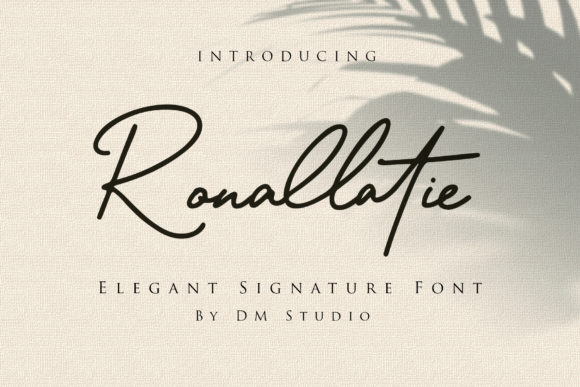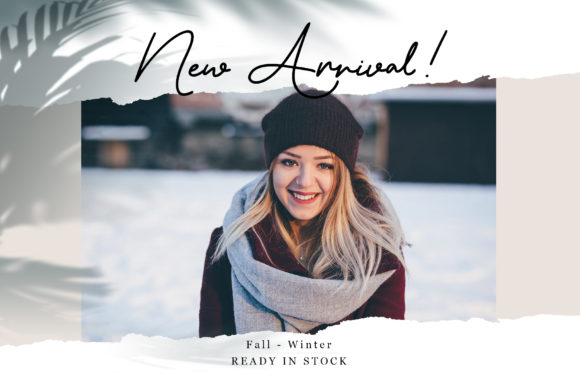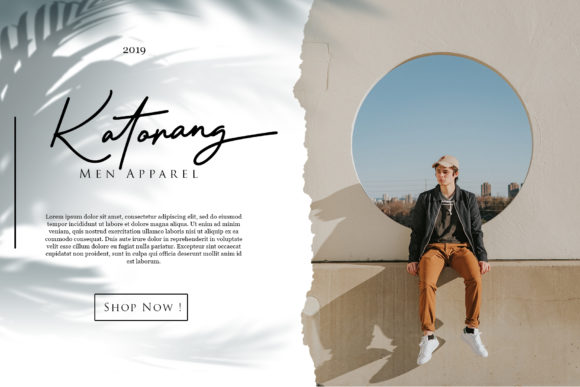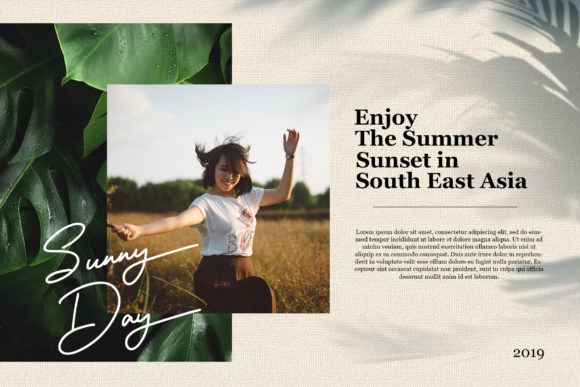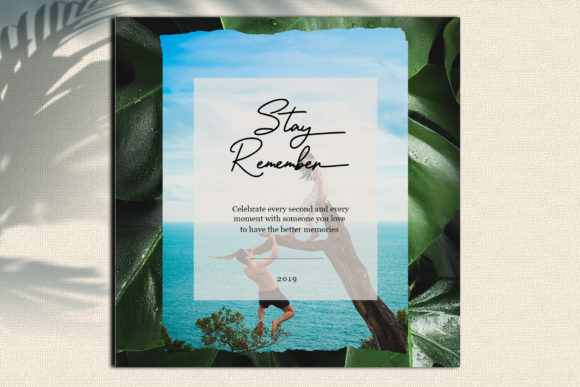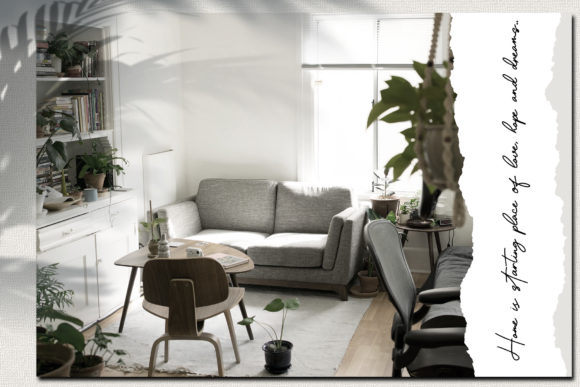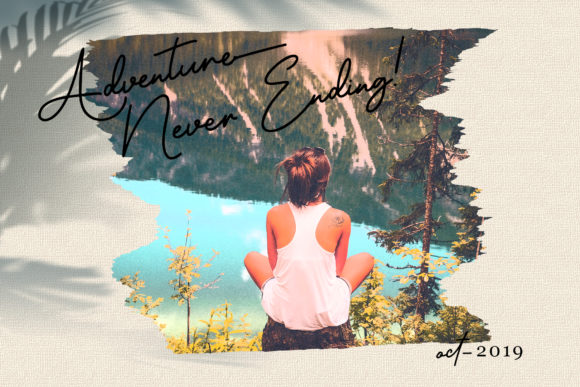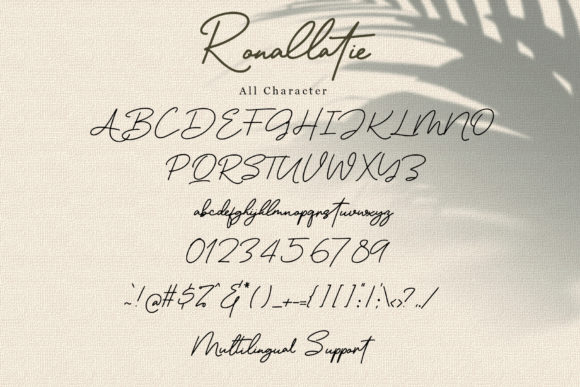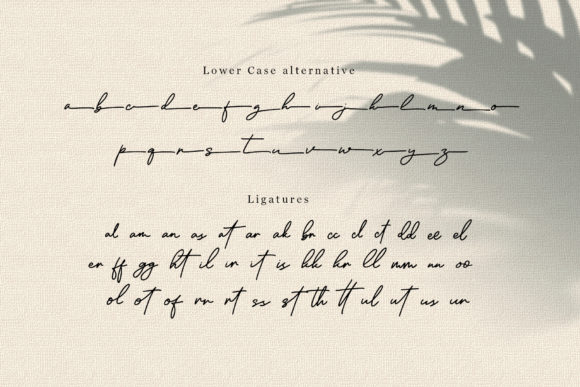
HomeScript FontsRonallatie Font Script Fonts Ronallatie Font FacebookXPinterestWhatsApp Ronallatie Font Poster 2 Ronallatie Font Poster 3 Ronallatie Font Poster 4 Ronallatie Font Poster 5 Ronallatie Font Poster 6 Ronallatie Font Poster 7 Ronallatie Font Poster 8 Ronallatie Font Poster 9 About Ronallatie Font Ronallatie is an elegant monoline handwritten font. Get inspired by its one-of-a-kind appeal! DOWNLOAD NOW People also explored Athletico Font Helgika Melody Font Biggest Dreamer Font Christmas Queen Font Hello Rainly Font Play Bell 2 Font Rillilove Font Shark Attack Font Aliandra Font 335 0 TagsRonallatie Font Previous articlePassenger FontNext articleKhartina Font LEAVE A REPLY Cancel reply Comment: Please enter your comment! Name:* Please enter your name here Email:* You have entered an incorrect email address! Please enter your email address here Website: Save my name, email, and website in this browser for the next time I comment. Personal Use Free Bitcrusher Condensed Bold Personal Use Free Read more about this font Romansya Personal Use Free Read more about this font Kids Toys Personal Use Free Read more about this font Mold Papa Personal Use Free Read more about this font BLOG Where to Buy American Fonts Online in 2024 Where to Buy American Fonts Online: The Ultimate Guide for 2024 Looking for the perfect American font to elevate your design projects? You're in the... Using Fonts in Digital Marketing: Tips to Strengthen Your Brand Identity Transform Your Website: Elevate Your Typography with 7 Best Web Font Generators Fonts That Capture the Spirit of New York City